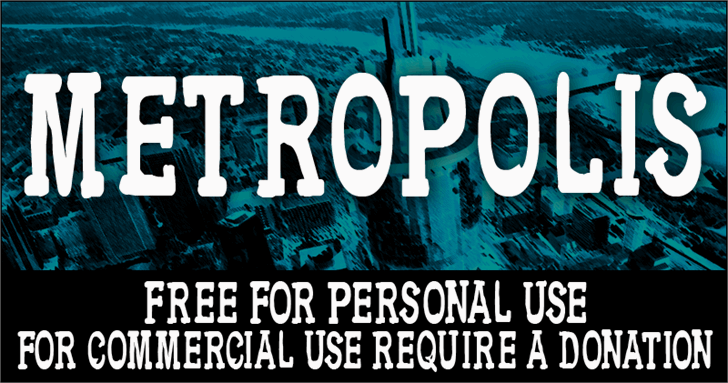
Free CF Metropolis Serif Font
Free cf metropolis serif font for graphic designers that need to present their work in a professional way. Go give some love to Font Space for creating this top-notch typeface. This is absolutely fancy font so you can easily make world-class designs.